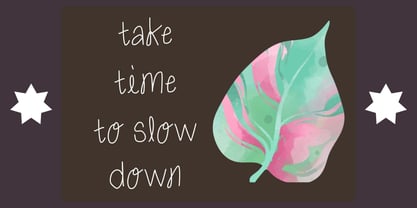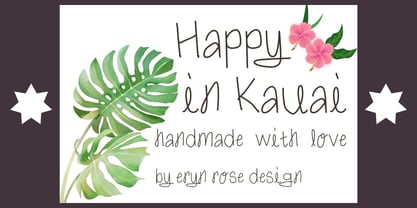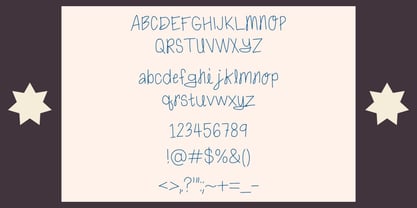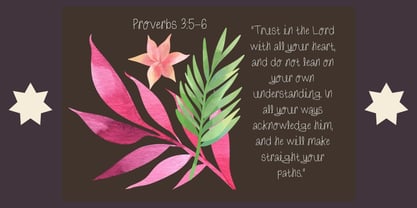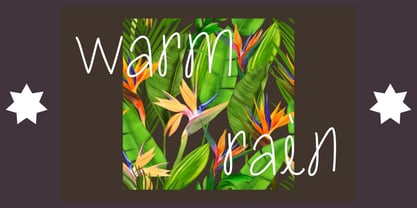
Happy in Kauai
por Eryn Rose Design
La familia tipográfica Happy in Kauai fue diseñada por Eryn Rose Tomlinson y publicada por Eryn Rose Design. Happy in Kauai contiene 1 estilos. Más información sobre esta familia
This uniquely hand-drawn font showcases a classic 'Handwriting Style' with stylized y's and artistic I's. Trendy, clean, fun, simple, and unique, it is perfect for a variety of applications including clothing label advertisements, stationery design, product and label design, and jewelry label design. The possibilities are endless with this font, which is guaranteed to infuse a light and happy feeling into any design project.
Eryn Rose, a graduate of the Rhode Island School of Design, is a multifaceted artist specializing in illustration, graphic design, and type design. She skillfully blends modern and classic typography, leveraging her fine art and design expertise. Each piece of her typography is unique, ensuring that it cannot be replicated or found elsewhere. Eryn's typography is artfully crafted, infusing warmth into her designs that only a human touch can provide. Her work resonates across various industries, including editorial, tech, and retail, setting her apart in the competitive market with her signature style and design philosophy.